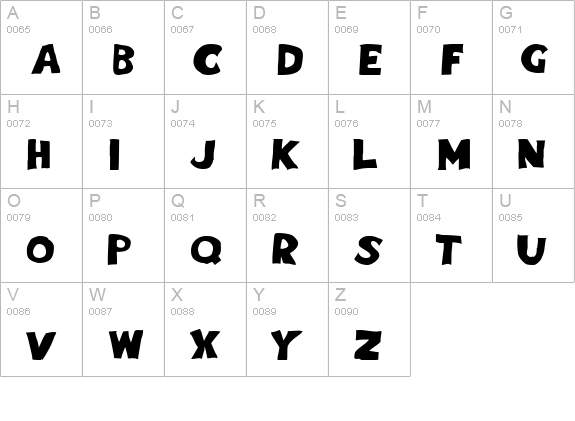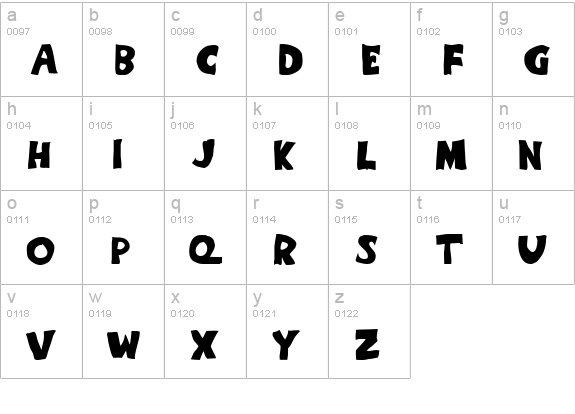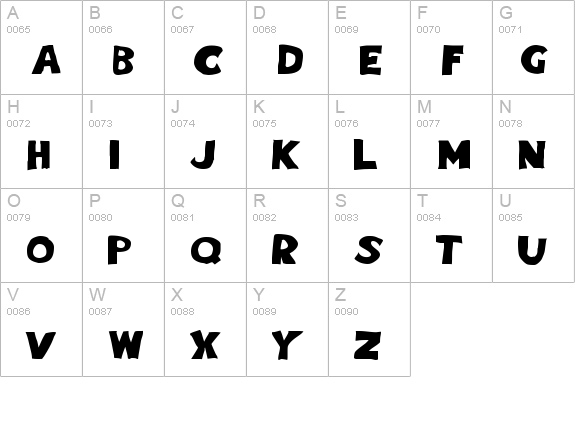
Eighty Percent Caps Font Details
Introducing Eighty Percent Caps font, a modern and sleek typeface designed for a variety of creative projects. This font features bold uppercase characters with a distinct style that exudes confidence and sophistication. Perfect for headlines, logos, posters, and more, Eighty Percent Caps font adds a touch of elegance to any design. What's even better is that Eighty Percent Caps font is available for free download at FontsMarket.com. This means you can easily access this stylish font and incorporate it into your projects without any cost. Take advantage of this opportunity to enhance your designs with the unique flair of Eighty Percent Caps font. Download it today and let your creativity shine!